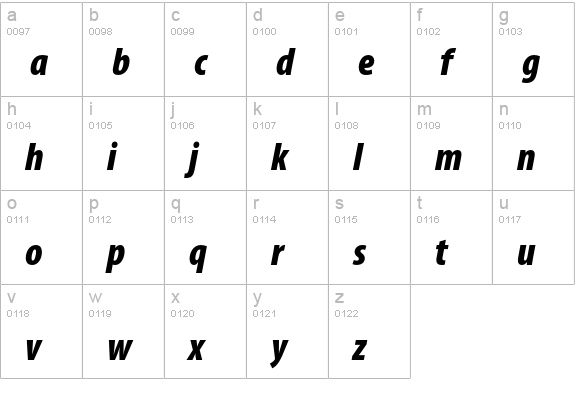
Myriad Pro Black Condensed Italic Font Details
Myriad Pro Black Condensed Italic is a maximum-weight, dramatic, condensed-width, italic variant in the Myriad typeface family \xE2\x80\x94 well suited to maximum-impact headlines, posters, and packaging.
Myriad Pro Black Condensed Italic font exudes a sense of bold sophistication and modern elegance. Its sleek and streamlined design adds a touch of contemporary flair to any project, making it perfect for conveying a sense of professionalism and style. The condensed italic style of this font makes it ideal for creating eye-catching headers, titles, and other design elements that demand attention. What sets Myriad Pro Black Condensed Italic font apart is not only its striking appearance but also the versatility it offers. Whether you're working on a sleek branding project, a stylish editorial layout, or a cutting-edge website design, this font is sure to make a statement. Best of all, Myriad Pro Black Condensed Italic font is available for free download at FontsMarket.com, making it easily accessible for designers and creatives looking to add a touch of sophistication to their projects without breaking the bank. Don't miss out on the opportunity to elevate your designs with this stunning and versatile font.